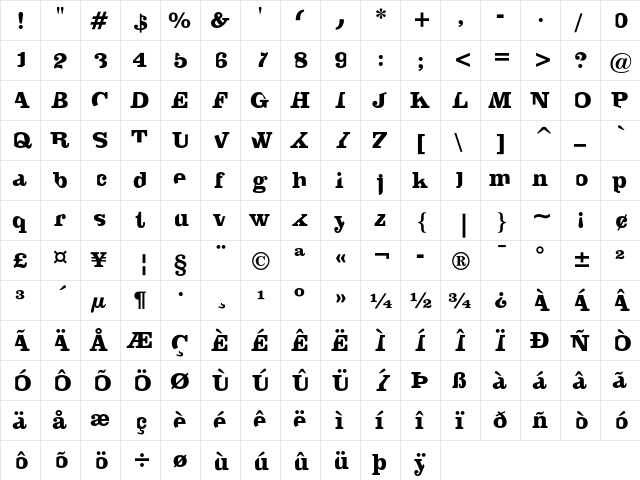
AmericanAnalogSet Regular
Design Context for AmericanAnalogSet Typeface
AmericanAnalogSet offers clean, dependable letterforms without strong stylistic allegiance, making it a practical choice for designers who need flexibility.
Pro Tip: Use AmericanAnalogSet in both headline and body roles to test its range before committing to a single application.